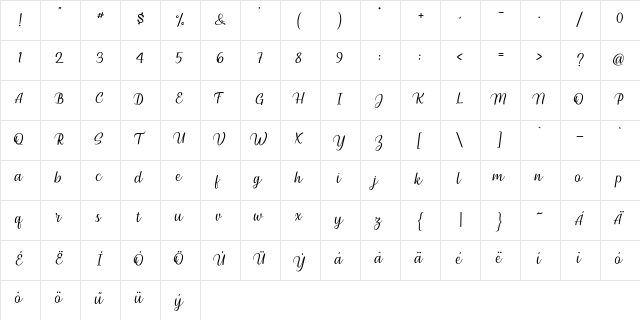
Millenial Script Regular
Design Context for Millenial Script Typeface
Millenial Script brings a calligraphic fluidity to the page — its connecting strokes and expressive curves give it an unmistakably human quality.
Font Pairing: Combine Millenial Script with a simple geometric sans for maximum contrast — the tension between flowing curves and clean structure is a classic typographic pairing.
Pro Tip: Use Millenial Script for short runs of text — names, titles, or taglines. Extended body copy in script faces tires the eye quickly.